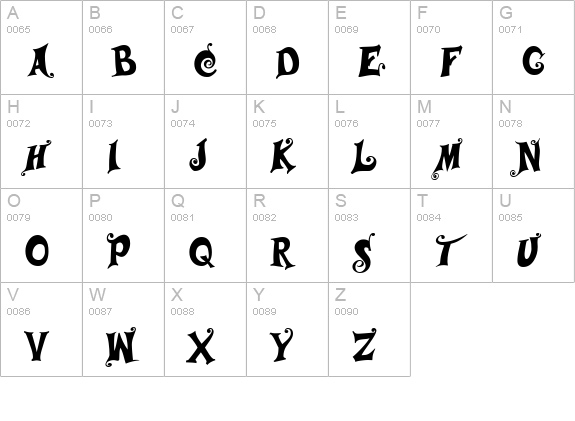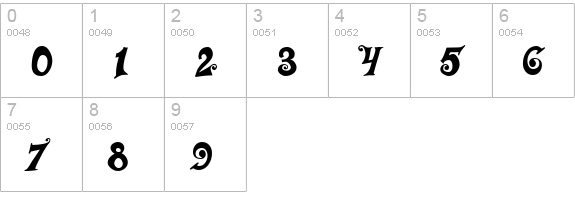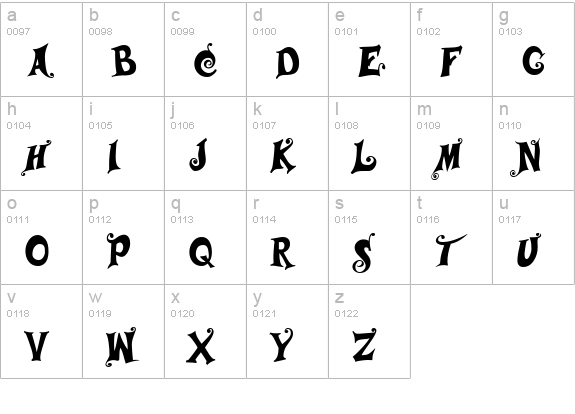
Musicals font is a whimsical and enchanting typeface that is perfect for adding a touch of theatrical flair to your designs. With its elegant and flowing characters, Musicals font brings to mind the excitement and vibrancy of a Broadway show. Whether you're working on a poster for a musical performance or creating graphics for a themed event, this font will certainly steal the spotlight. The best part is that Musicals font is available for free download at FontsMarket.com. So, go ahead and bring the magic of the stage to your projects with this delightful and captivating font. Let your creativity shine and let Musicals font be your partner in creating unforgettable designs.